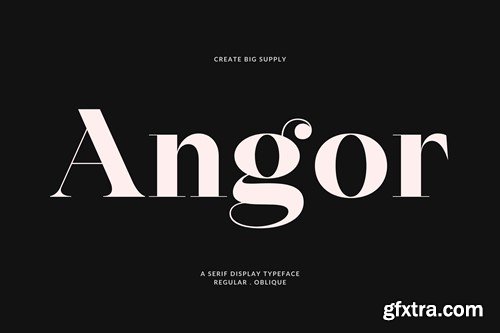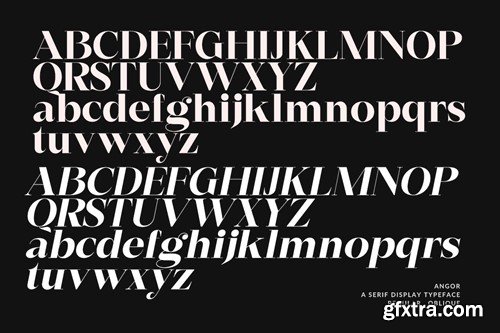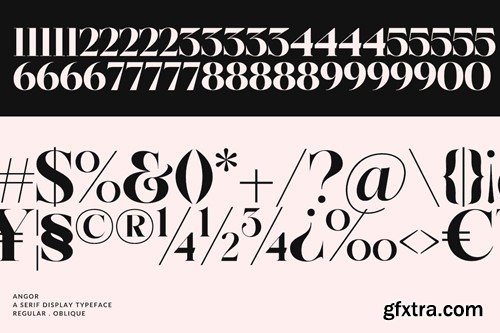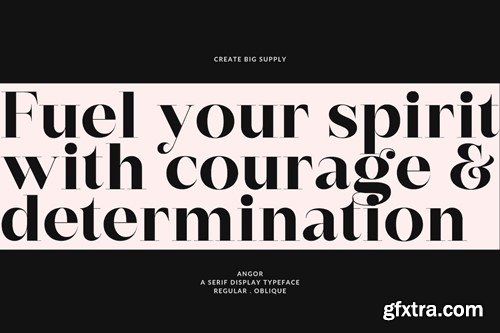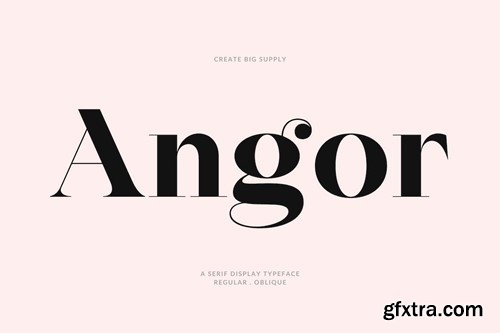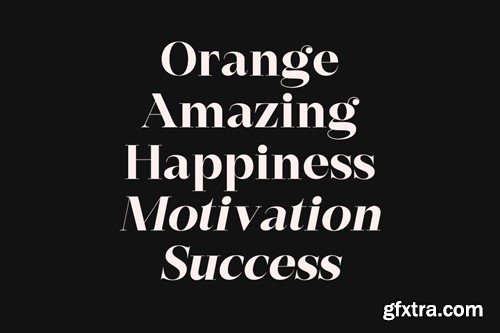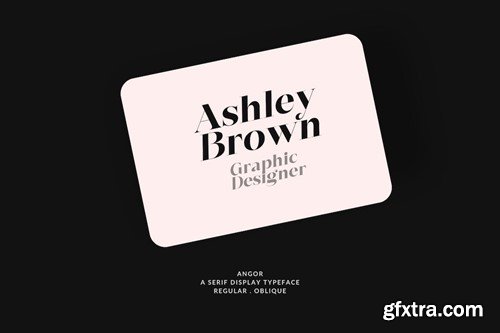
Angor boasts both uppercase and lowercase characters, offering versatility and adaptability for various design applications. Whether you're crafting attention-grabbing headlines, impactful posters, or dynamic branding materials, Angor's bold serif style commands attention and leaves a lasting impression. With a comprehensive set of numbers and punctuations, Angor ensures clear and effective communication of your message across different platforms and mediums. Its multilingual support allows you to connect with audiences worldwide seamlessly, making it suitable for global projects. Angor comes in both regular and oblique styles, providing you with options to suit your design needs. With PUA Encoding, accessing special characters becomes effortless, empowering you to unleash your creativity and add unique touches to your projects. Explore Your Font Boutique today to discover the full potential of Angor and elevate your designs with its bold serif display font. File Format Include: